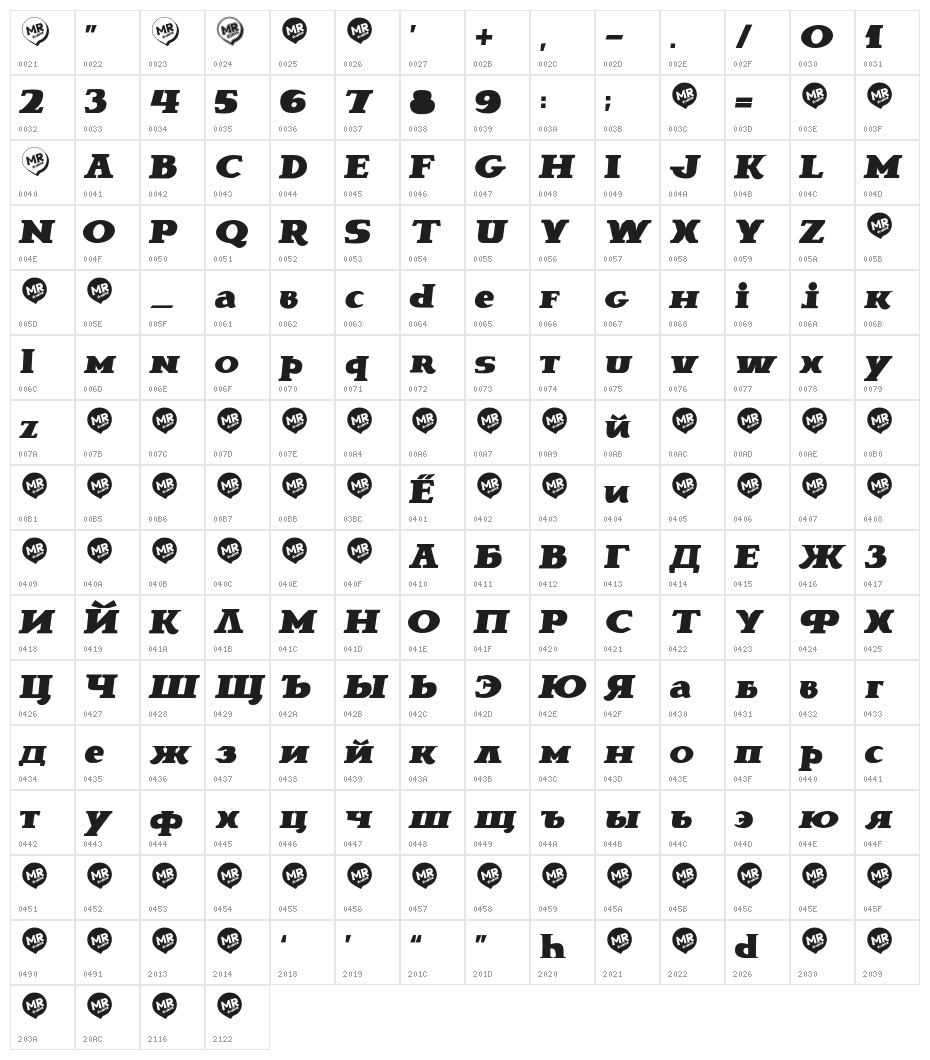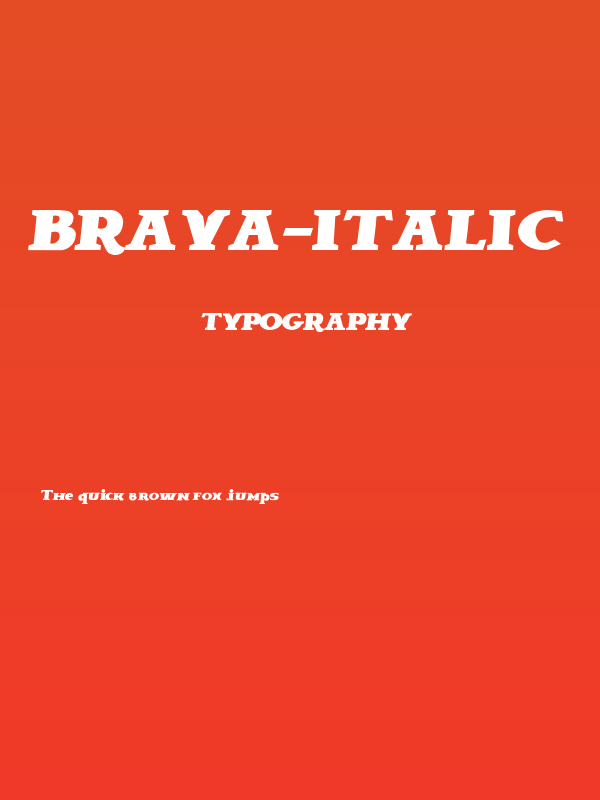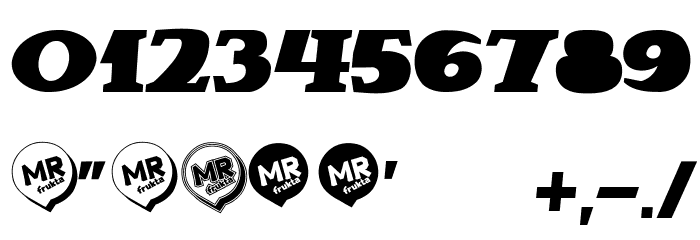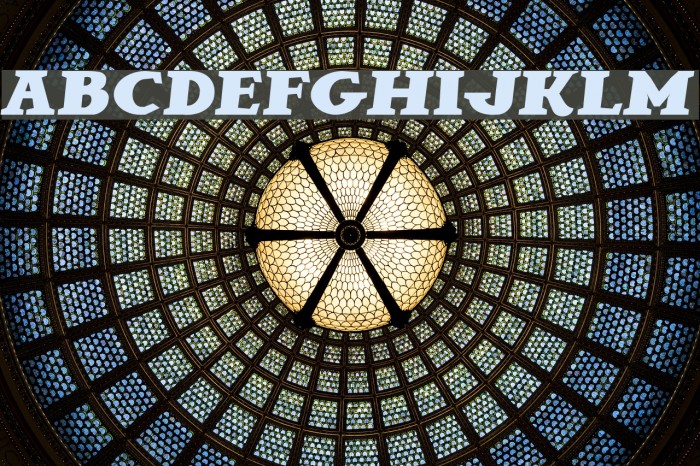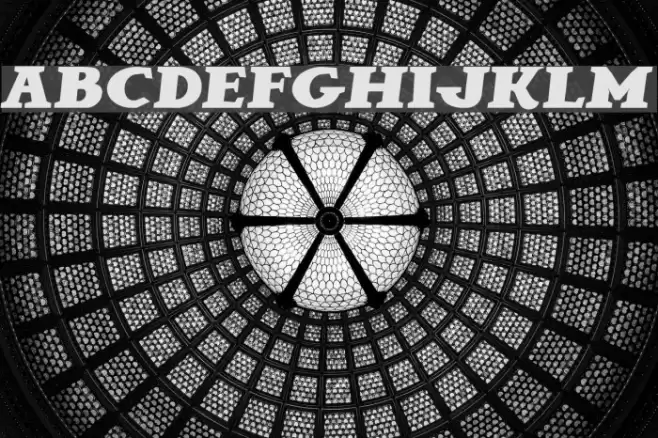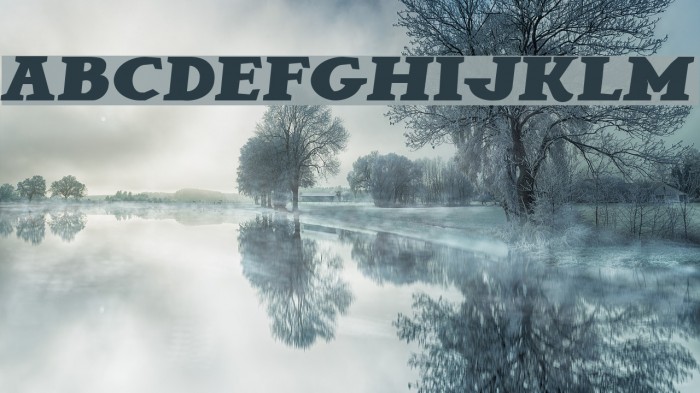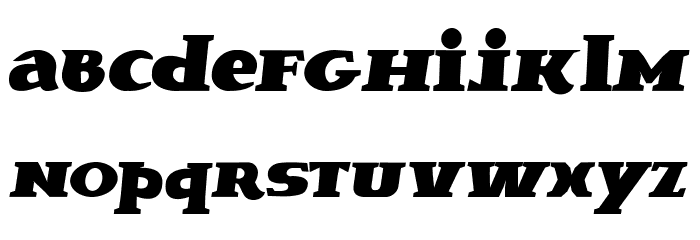
Brava-Italic Font
Brava-Italic Description
This font features a bold and dynamic italic style with a strong presence. The characters are slightly slanted, giving a sense of movement and energy. The strokes are thick and consistent, providing a robust and impactful appearance. The uppercase letters are particularly striking, with sharp angles and a confident stance. The lowercase letters maintain the same boldness, ensuring readability and cohesion. Numbers are equally bold, making them stand out effectively. The special characters are designed to match the overall style, adding versatility to the font's use.
| Proposed Projects | Ideal for branding, posters, headlines, and any design requiring a strong, impactful typeface. |